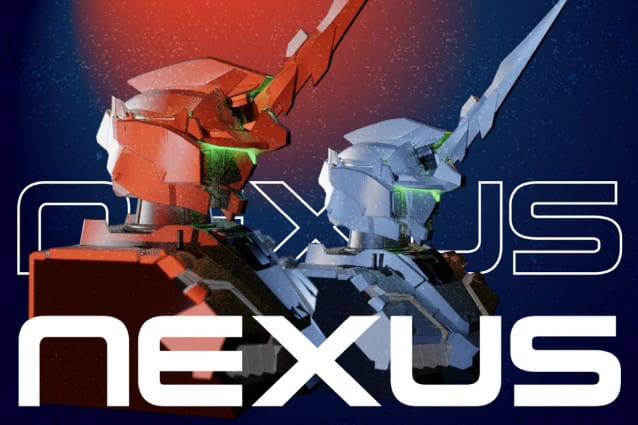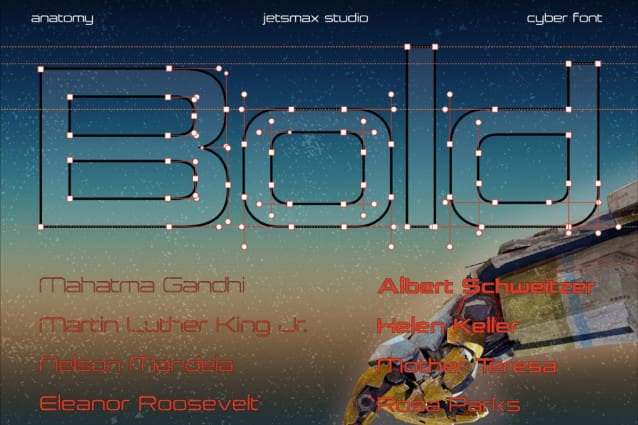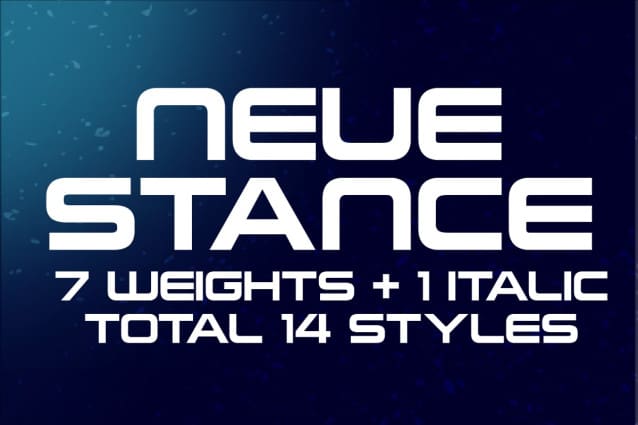
Neue Stance Font Family
Neue Stance Font Family is a futuristic bold typeface designed for maximum readability and visual impact. Its sleek and modern lines make it ideal for media that demands attention, whether in digital or print formats. The font’s design balances strong geometric shapes with smooth curves, creating a dynamic and assertive aesthetic. Perfect for headlines, branding, and bold statements, “Neue Stance” enhances legibility while embodying a forward-thinking, high-tech vibe. Its versatility makes it suitable for everything from tech-oriented websites to eye-catching advertising campaigns.